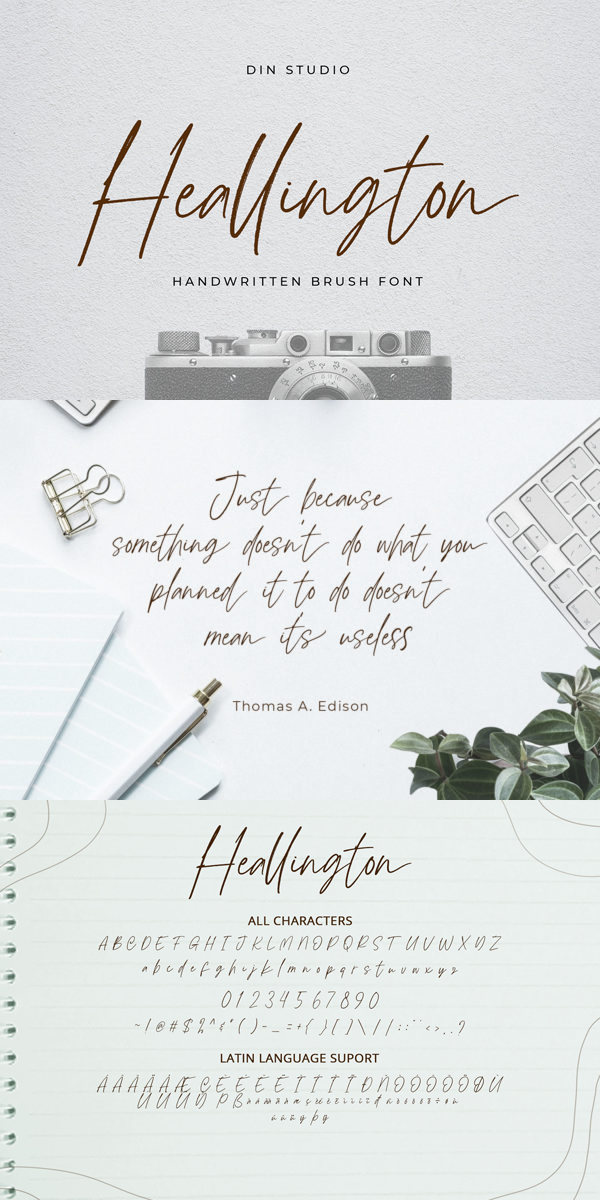
Heallington Font
About Heallington
Heallington is a handwritten brush font. With a natural handwritten style, it brings a classy and beautiful typeface. Heallington is best used for branding, logotype, and quotes.